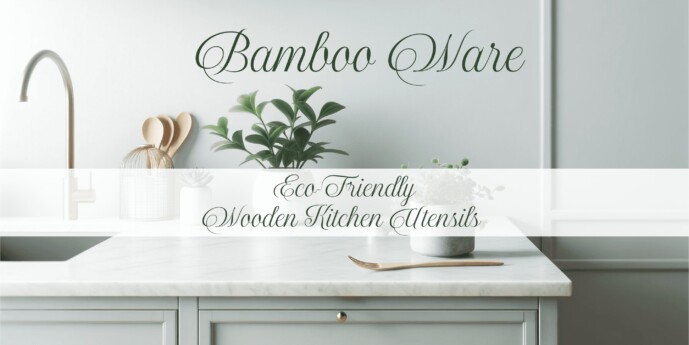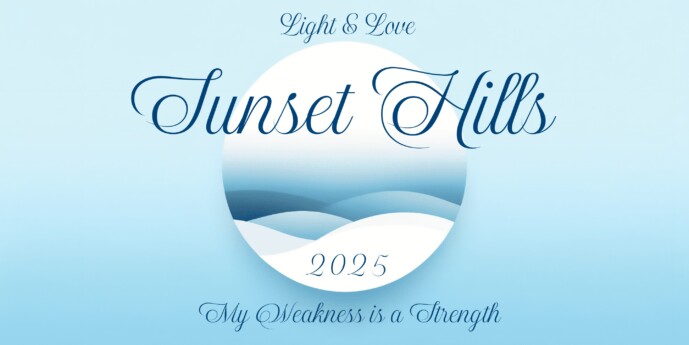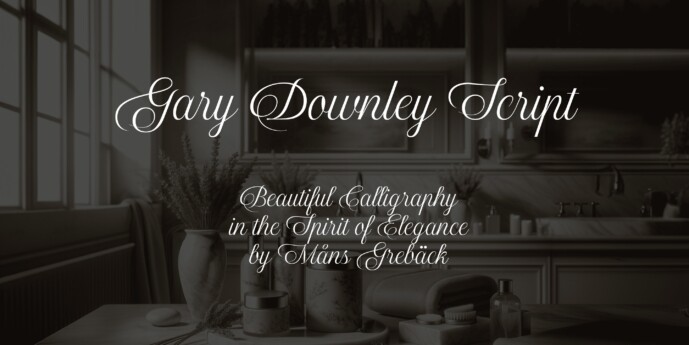
Gary Downley Script Font
Designer: Mans Greback
Gary Downley Script Font is a formal script typeface that adds a touch of beauty to your text.
The graceful curves and delicate lines give it a beautiful and charming feel, ideal for any setting that requires a sophisticated and sweet touch.